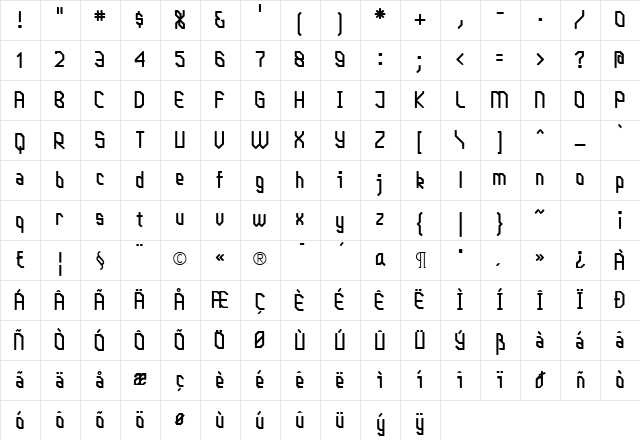
WhichitTwo Bold Free Font
WhichitTwo Bold
Design Context for WhichitTwo
WhichitTwo is a composed and adaptable typeface that performs quietly and consistently across a wide range of design contexts. Its bold stroke weight gives it real presence on the page.